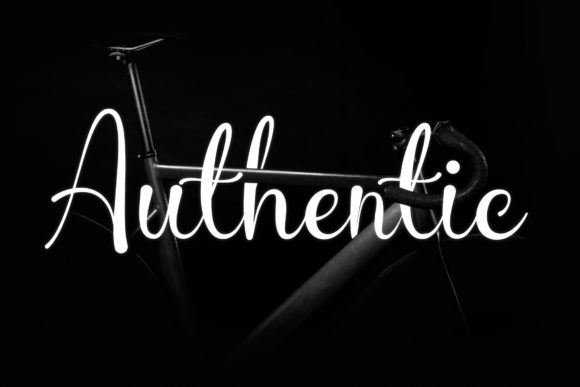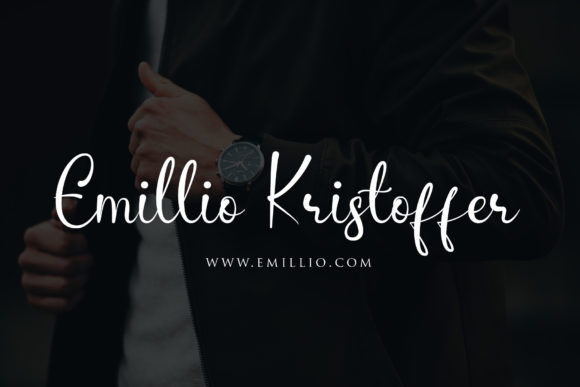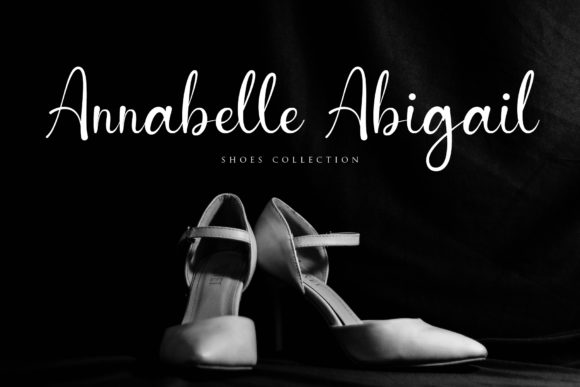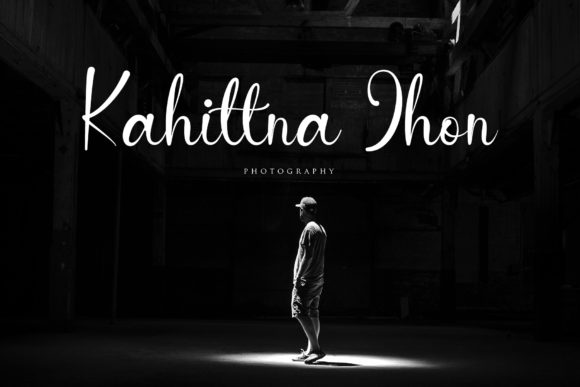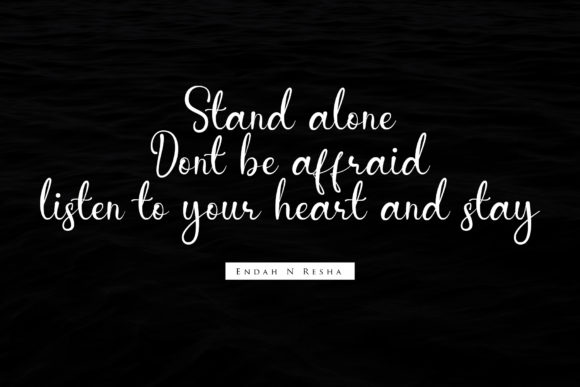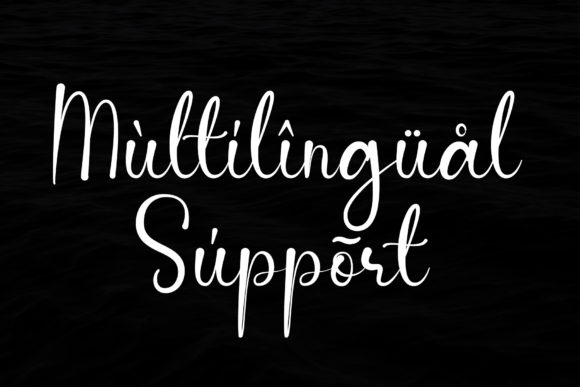
Introducing Anderella Font: Elevate Your Designs with a Bold and Beautiful Handwritten Style
Are you tired of using the same old fonts in your design projects? Look no further than Anderella Font, a stunning handwritten font that adds a touch of elegance and sophistication to any design. With its bold swashes and organic feel, Anderella is the perfect choice for designers and crafters looking to make a statement.
What is Anderella Font?
Anderella Font is a beautiful and bold handwritten font that is perfect for adding a personal touch to your designs. Its unique and organic feel sets it apart from other fonts, making it a standout choice for any project. Whether you’re working on a logo, branding materials, or social media graphics, Anderella Font is sure to turn heads.
Key Features of Anderella Font
- Bold Swashes: Anderella Font features bold swashes that add a touch of drama and elegance to your designs.
- Organic Feel: The font’s organic feel gives it a unique and handmade look that’s perfect for crafty and DIY designs.
- Handwritten Style: Anderella Font is a handwritten font that adds a personal touch to your designs, making them stand out from the crowd.
- Versatile: Anderella Font is perfect for a wide range of design projects, from logos and branding materials to social media graphics and more.
Why Choose Anderella Font?
There are many reasons why Anderella Font is a top choice for designers and crafters. Here are just a few:
- Unique and Eye-Catching: Anderella Font is a one-of-a-kind font that is sure to grab attention and make your designs stand out.
- Easy to Read: Despite its bold and decorative style, Anderella Font is easy to read and understand, making it perfect for use in a wide range of design projects.
- Customizable: Anderella Font comes with a range of customization options, allowing you to tailor it to your specific design needs.
How to Use Anderella Font in Your Designs
Using Anderella Font in your designs is easy. Here are a few tips to get you started:
- Pair it with a Simple Font: Anderella Font is bold and decorative, so it’s best paired with a simple font to create contrast and visual interest.
- Use it for Headings: Anderella Font is perfect for use in headings and titles, where its bold and decorative style can really shine.
- Experiment with Colors: Anderella Font looks great in a wide range of colors, so don’t be afraid to experiment and find the perfect hue for your design.
Who is Anderella Font for?
Anderella Font is perfect for a wide range of designers and crafters, including:
- Graphic Designers: Anderella Font is a great choice for graphic designers looking to add a personal touch to their designs.
- Crafters: Anderella Font is perfect for crafters who want to add a handmade touch to their projects.
- Social Media Managers: Anderella Font is a great choice for social media managers looking to create eye-catching graphics and posts.
Anderella Font is a beautiful and bold handwritten font that is perfect for designers and crafters looking to add a personal touch to their designs. With its bold swashes and organic feel, Anderella Font is sure to turn heads and make your designs stand out. So why wait? Download Anderella Font today and start creating stunning designs that showcase your unique style and creativity!